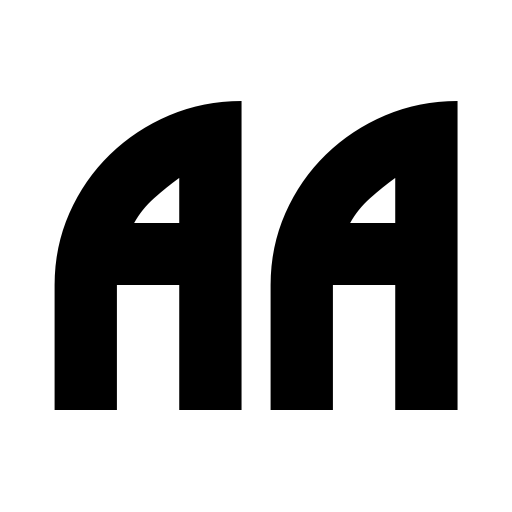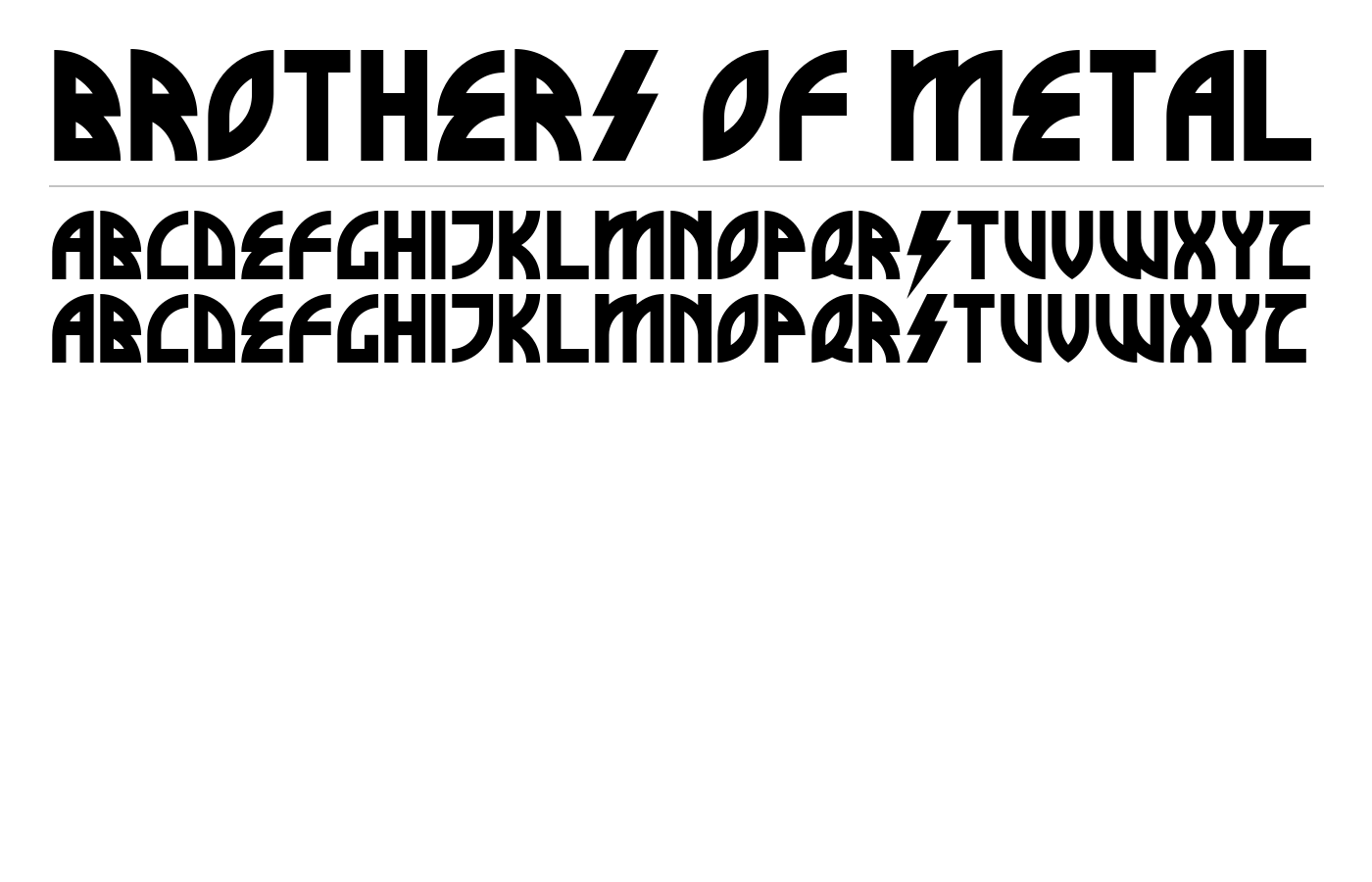
Brothers of Metal is a bold, geometric sans serif font with a strong, edgy character that combines sharp angles and stylized details like a lightning bolt-shaped "S" and unique letterforms with circular cutouts. Its heavy weight and condensed width create a powerful and impactful presence, making it ideal for logos, headlines, and branding in music, gaming, and entertainment industries seeking a modern yet rebellious vibe. This font’s dramatic style works best when used for display purposes where its striking personality can truly stand out.
Brothers of Metal Font
About Brothers of Metal Font
| Font family | Brothers of Metal Font |
| Designer | Derek Clark |